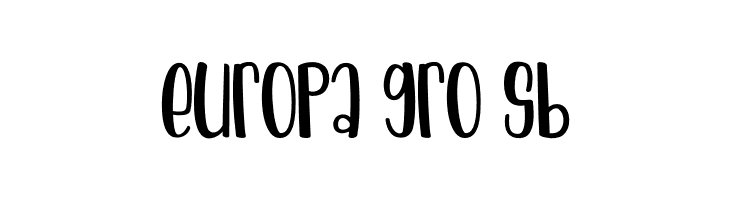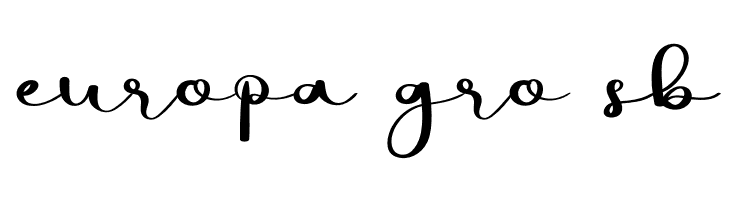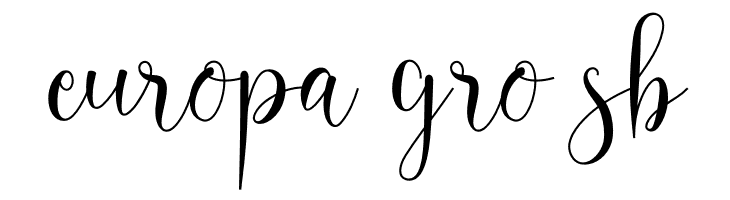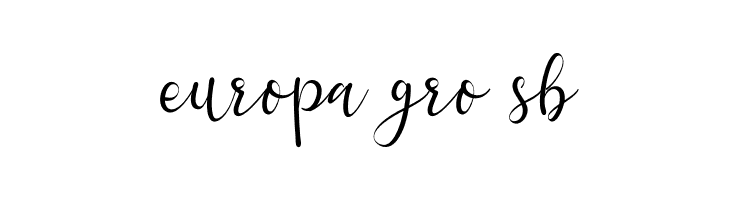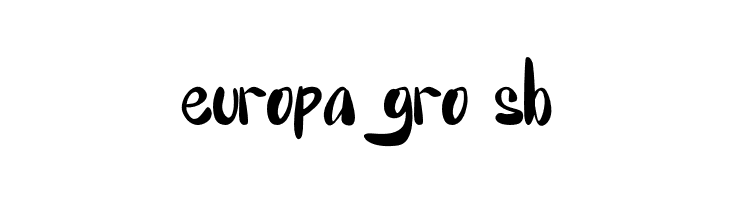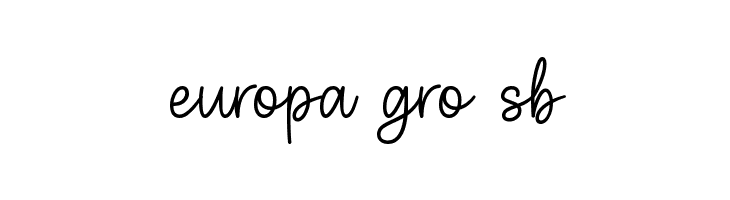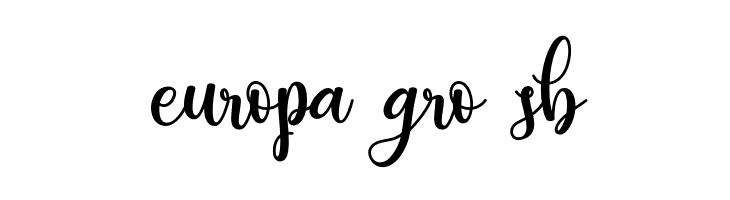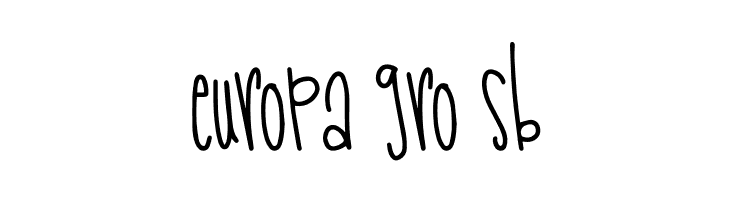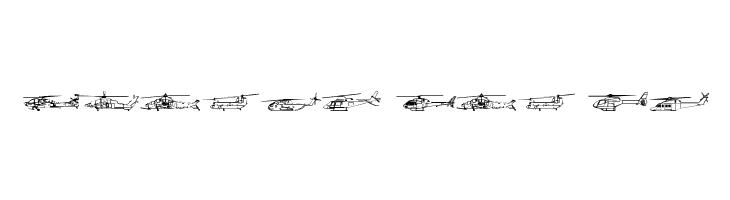
A bold, hand-drawn font with bone-inspired, whimsical shapes.
A playful, hand-drawn font with a whimsical and informal style.
A bold, playful handwritten font with dynamic curves and thick strokes.
Elegant cursive script with a handwritten style.
A playful, hand-drawn font with tall, narrow letters and a whimsical style.
A playful and whimsical script font with elegant swirls and decorative flourishes.
A playful, cursive font with a hand-drawn, whimsical style.
A playful, handwritten script font with smooth, flowing lines and elegant curves.
A playful, handwritten script font with a whimsical and fluid style.
A playful handwritten font with dynamic strokes and a lively style.
A whimsical and elegant script font with flowing, connected letterforms.
A playful, handwritten font with a bold and whimsical style.
A lively, flowing script font with elegant, cursive letterforms.
A flowing, cursive script font with elegant loops and swashes.
A bold, handwritten font with a playful and energetic style.
A lively and elegant script font with flowing, interconnected strokes.
A graceful and fluid script font with elegant, cursive characteristics.
A flowing, cursive font with elegant, sweeping lines and artistic flair.
A flowing, cursive font with elegant, sweeping strokes and an italic slant.
A bold, decorative font with a unique outline effect and strong serifs.
A playful, hand-drawn font with rounded edges and a whimsical style.
A playful and festive script font with elegant loops and swirls.
( Fonts by Md Shohail Bhuian - Personal-use only. For commercial use please contact owner. )
A playful, handwritten font with a bold, whimsical style.
( Fonts by Beta Dine )
A playful, casual handwritten font with fluid, connected strokes.
( Fonts by HansCo - Burhan Afif - Personal-use only. For commercial use please contact owner. )
A playful, handwritten font with fluid, connected letterforms and a casual style.
( Fonts by Paily Studio - Personal-use only. For commercial use please contact owner. )
A flowing cursive script font with elegant, interconnected strokes.
( Fonts by Eddy Goodboy - Personal-use only. For commercial use please contact owner. )
A lively and expressive handwritten font with fluid strokes.
( Fonts by Rodrigo German - RASDESIGN )
Cartoon mascot font with bold outlines and playful characters.
A helicopter-themed dingbat font with detailed aircraft illustrations.
A decorative font featuring detailed helicopter silhouettes for each character.
A playful, bold script font with a handwritten feel.
A graceful and elegant script font with flowing, cursive letterforms.